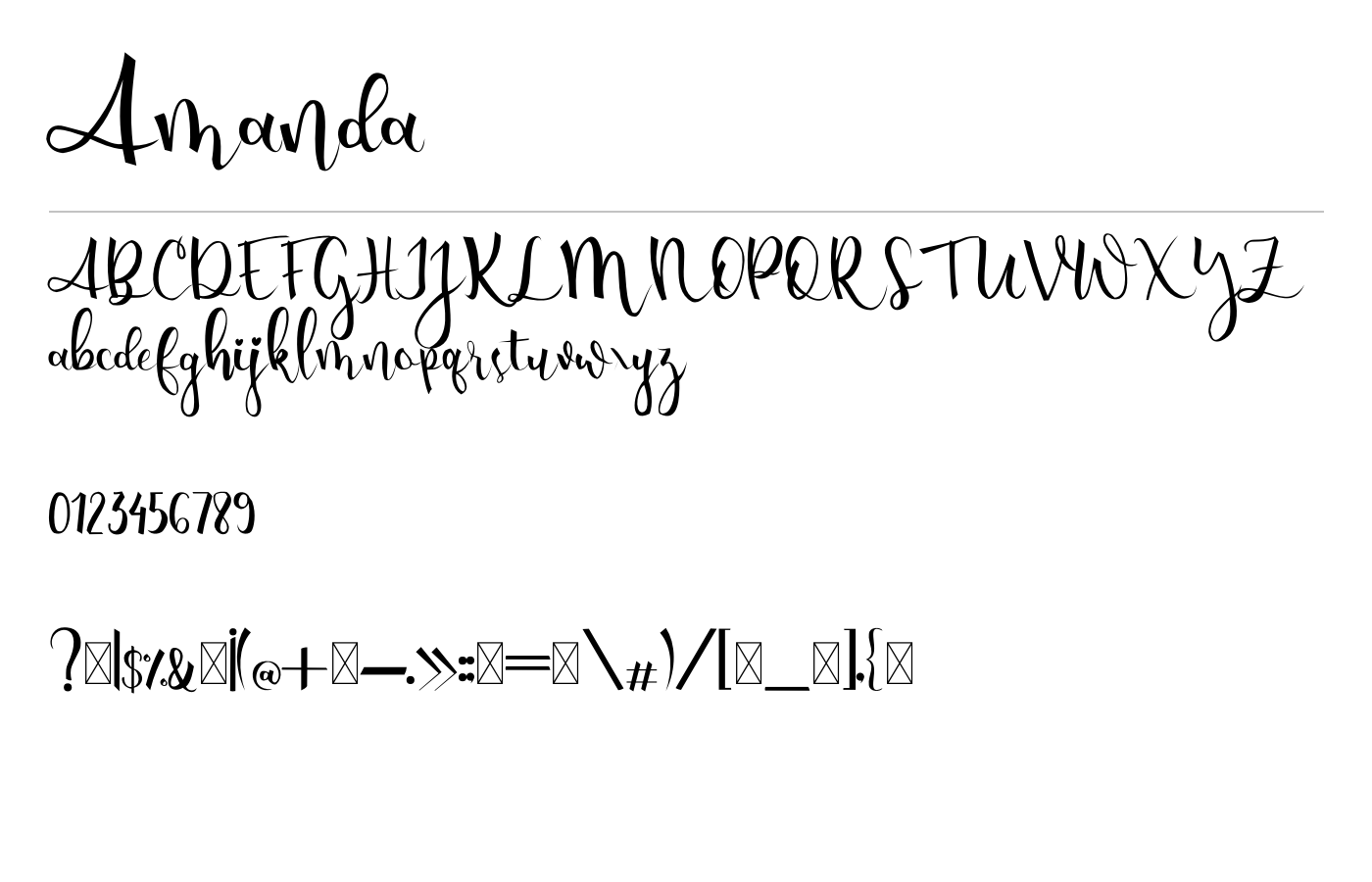
Amanda is a playful, handwritten script font featuring delicate, flowing letterforms with a lively and elegant feel. Its varying stroke widths and whimsical loops make it perfect for creative and personal projects such as invitations, logos, and branding that seek a friendly yet stylish touch. This font adds a charming, artistic flair ideal for fashion, lifestyle, and boutique designs.
Amanda Font
About Amanda Font
| Font family | Amanda Font |
| Designer | Agni Ardi Rein Prasetyo |